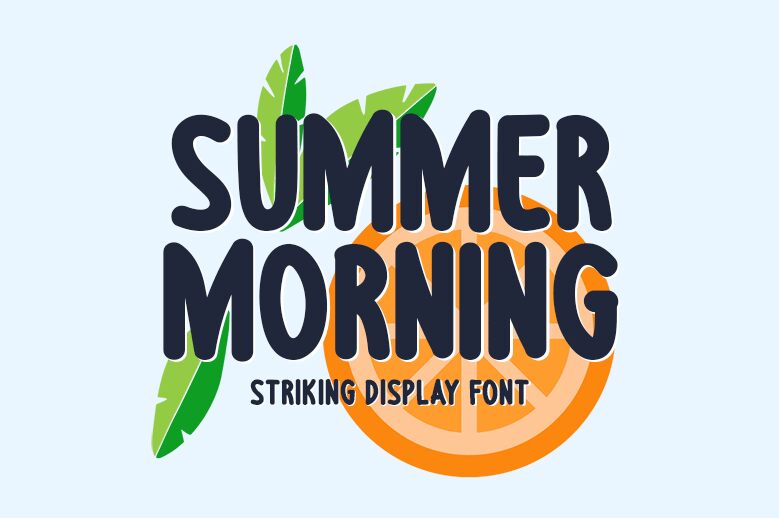
Summer Morning font by Md Shohail Bhuian is a bold, handwritten typeface that captures the essence of relaxed, carefree days. Its rounded characters and uniform texture offer a friendly, retro-inspired look, lending a casual aesthetic that feels both personal and organic. This free handwritten font evokes a warm atmosphere that showcases an inviting yet stylish design built to stand out in your projects.
Use Summer Morning for logo designs or branding initiatives where a soft touch is essential. The typeface also shines in magazine covers, social media posts, invitations, greeting cards, labels, packaging designs; advertisements or websites where an easygoing vibe feels appropriate.